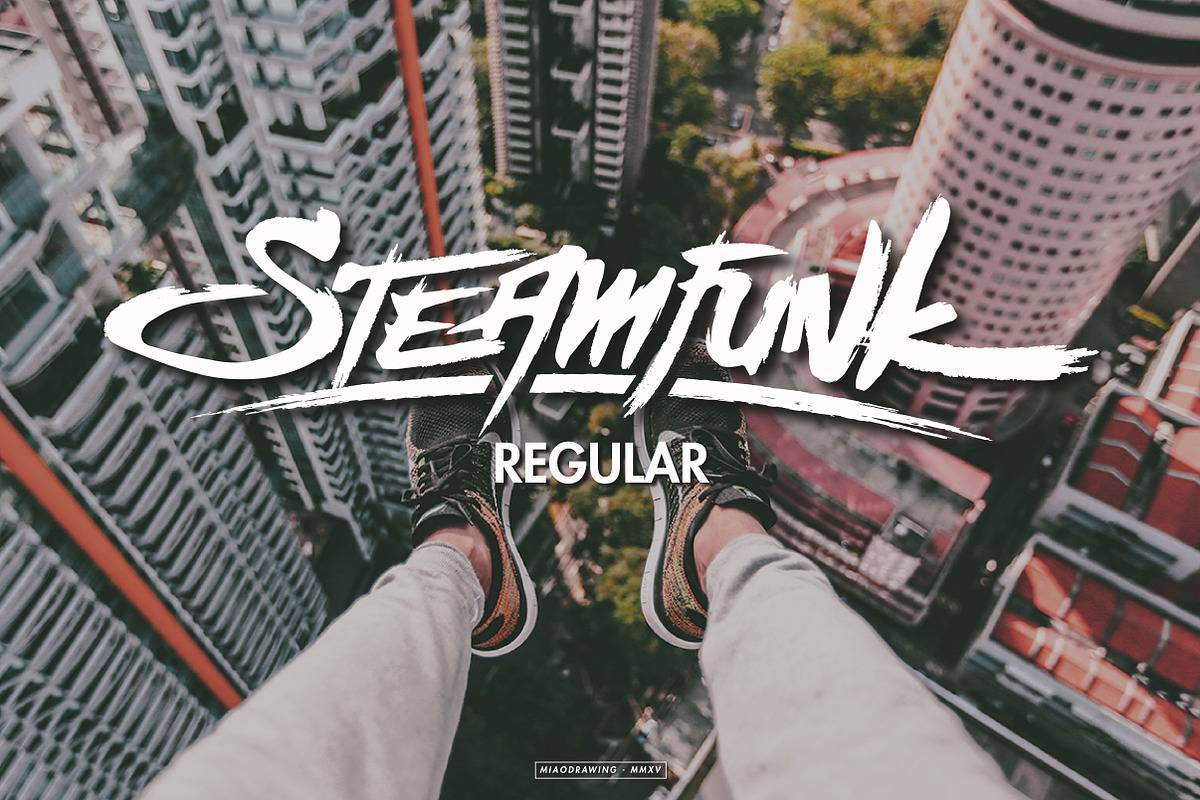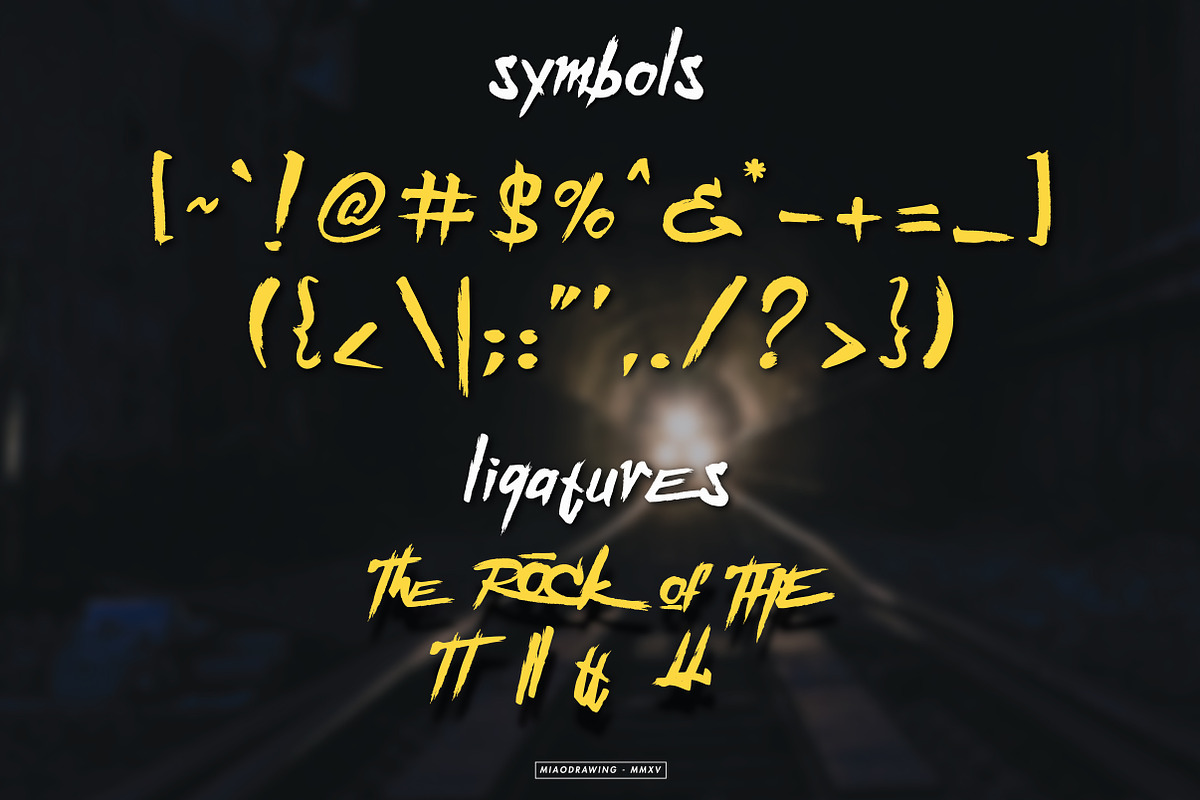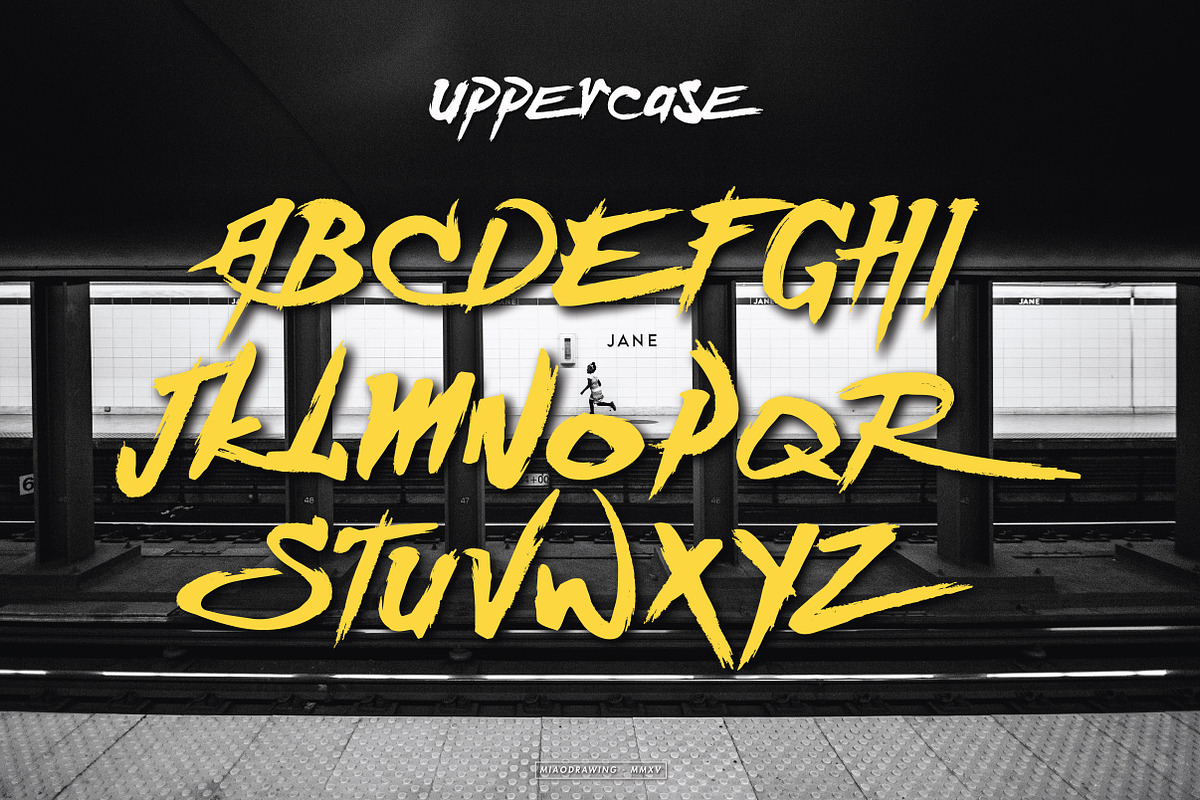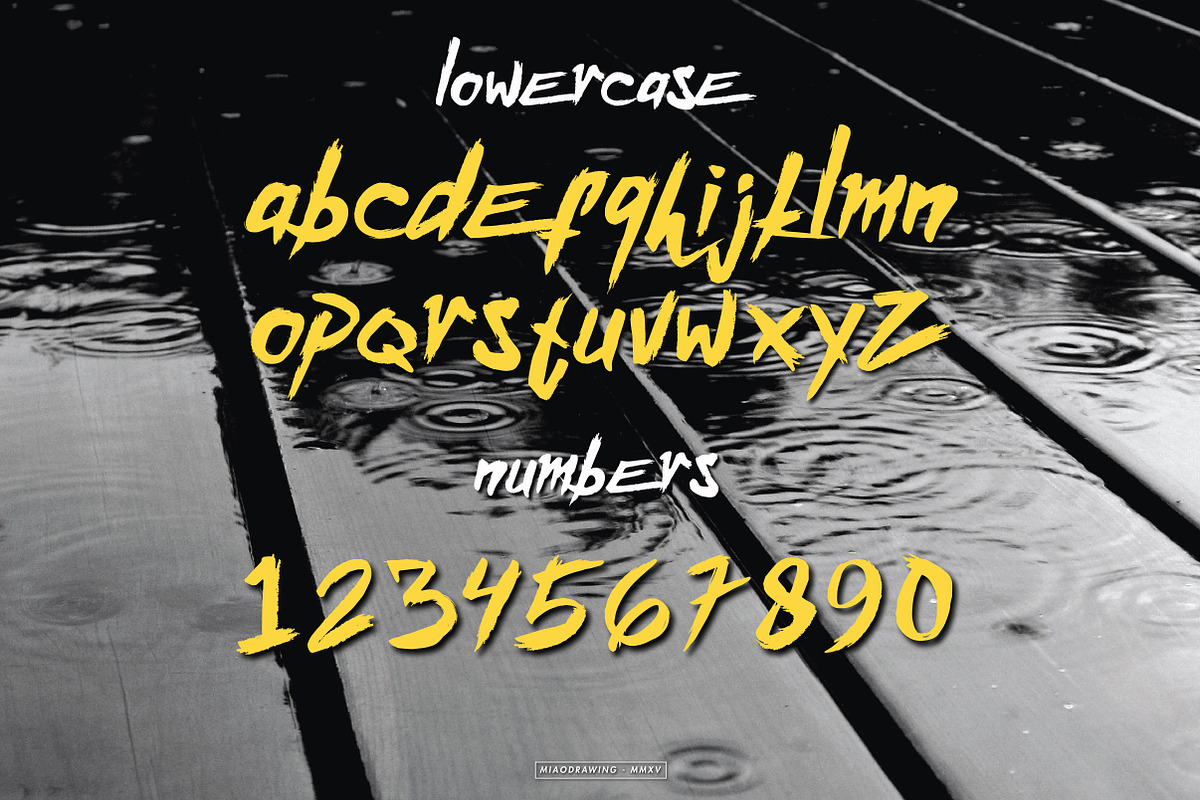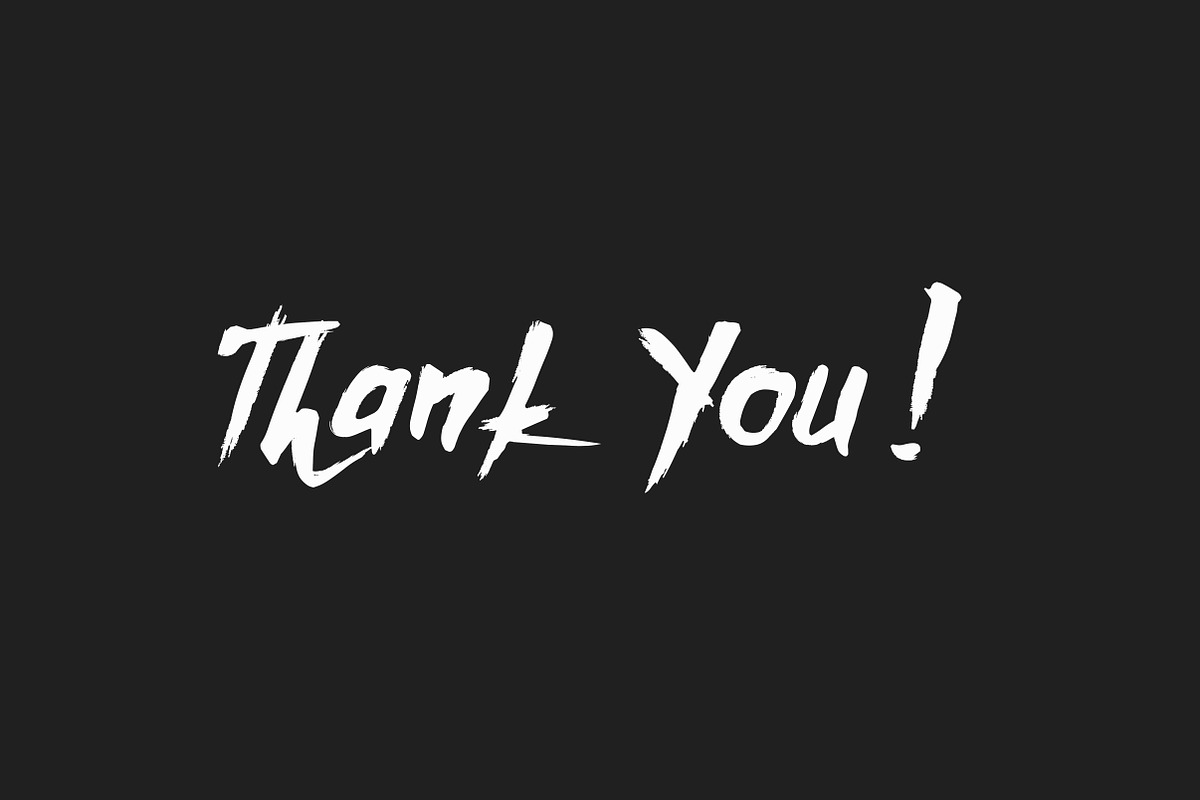
Steamfunk Typeface
Steamfunk Typeface by Gumico Studio. is a font selected for branding, posters, packaging, typography.
- Steamfunk Typeface comes with uppercase & lowercase characters, punctuation, numerals, and ligatures.
Why Steamfunk Typeface is worth a look
Steamfunk Typeface by Gumico Studio. fits naturally into Branding, posters, packaging, typography.